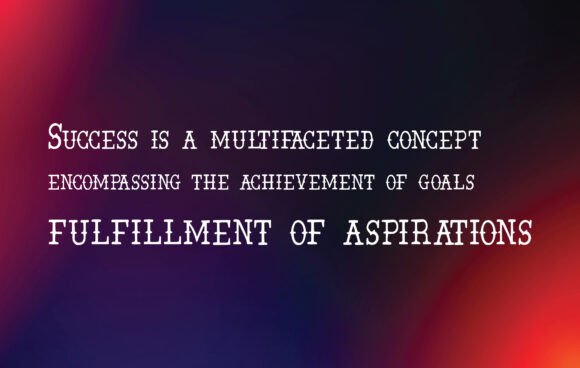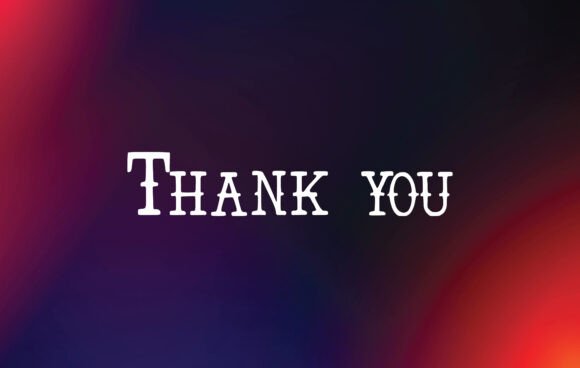
Introducing Amos Font: Elevate Your Creative Projects with a Lovely Slab Serif Typeface
Are you on the hunt for a font that can take your creative ideas to new heights? Look no further than Amos Font, a stunning slab serif typeface that is sure to impress. With its unique blend of elegance and playfulness, Amos Font is the perfect choice for designers and crafters looking to add a touch of sophistication to their projects.
What Makes Amos Font So Special?
Amos Font is a beautifully crafted slab serif font that boasts a distinctive look and feel. Its sturdy serifs and clean lines make it an excellent choice for creating eye-catching logos, branding materials, and quotes. Whether you’re working on a graphic design project, crafting a handmade card, or developing a brand identity, Amos Font is sure to make a lasting impression.
Key Features of Amos Font
• Lovely and Beautiful Design: Amos Font features a unique and captivating design that is sure to grab attention. Its elegant lines and curves make it perfect for projects that require a touch of sophistication.
• Slab Serif Style: The font’s slab serif style gives it a sturdy and dependable feel, making it ideal for creating logos, headings, and titles.
• High Versatility: Amos Font can be used for a wide range of projects, from graphic design and branding to crafting and DIY projects.
• Easy to Read: Despite its decorative nature, Amos Font is surprisingly easy to read, making it perfect for use in quotes, posters, and other display materials.
Why Choose Amos Font?
So why should you choose Amos Font for your next project? Here are just a few compelling reasons:
• Unique and Memorable: Amos Font is a one-of-a-kind typeface that is sure to make your project stand out from the crowd.
• Professional-Grade Quality: With its clean lines and elegant design, Amos Font is perfect for projects that require a professional-grade look and feel.
• Time-Saving: With Amos Font, you can create stunning visual materials in no time. Its easy-to-read design and versatile style make it perfect for quick and efficient design work.
How to Use Amos Font in Your Projects
Amos Font is incredibly versatile and can be used in a wide range of projects, including:
• Logo Design: Create a lasting impression with a custom logo designed using Amos Font.
• Branding Materials: Use Amos Font to create eye-catching business cards, brochures, and other marketing materials.
• Quotes and Posters: Add a touch of elegance to your quotes and posters with Amos Font.
• Crafting and DIY Projects: Use Amos Font to add a personal touch to your handmade cards, scrapbooking, and other craft projects.